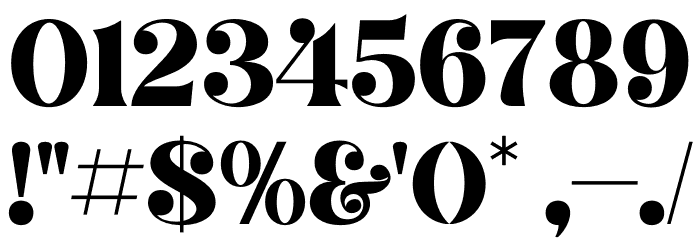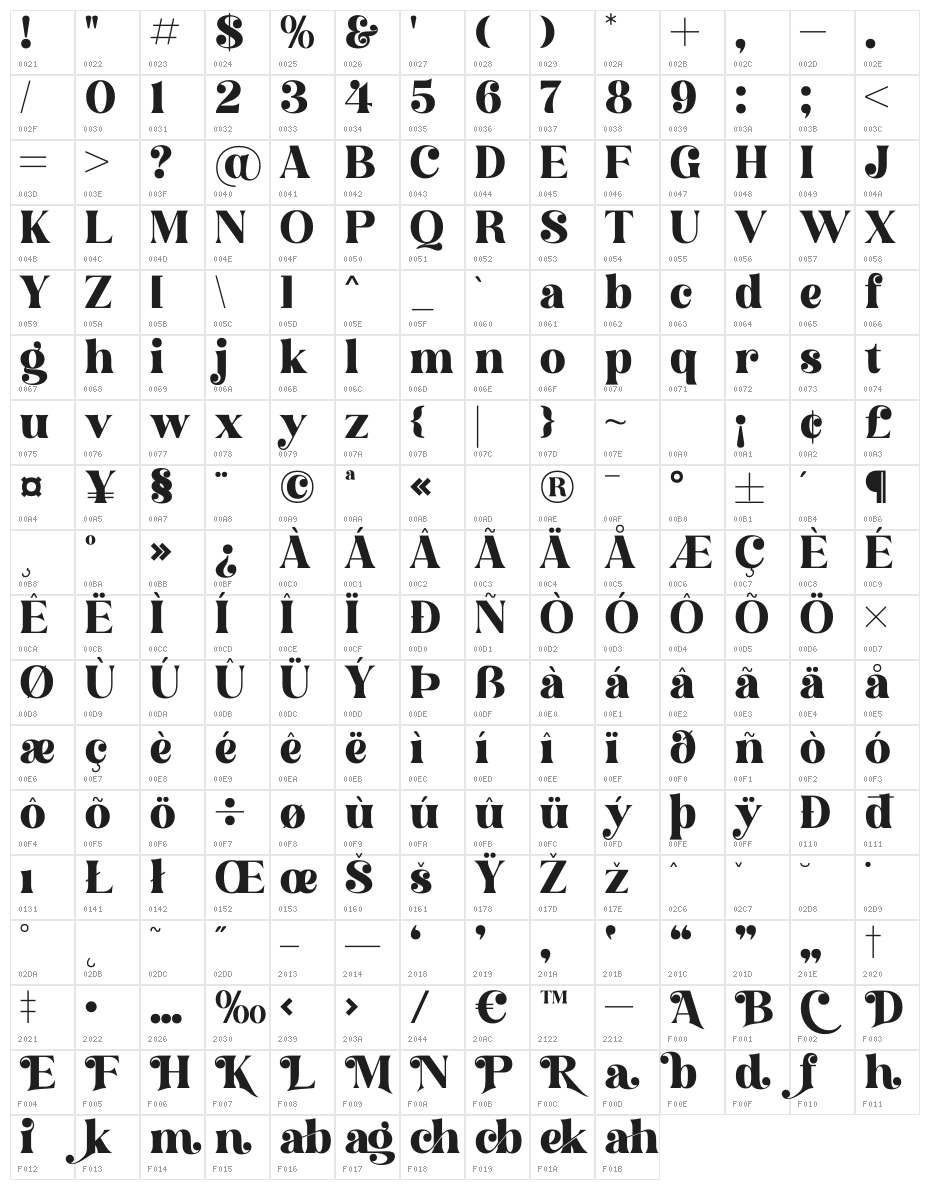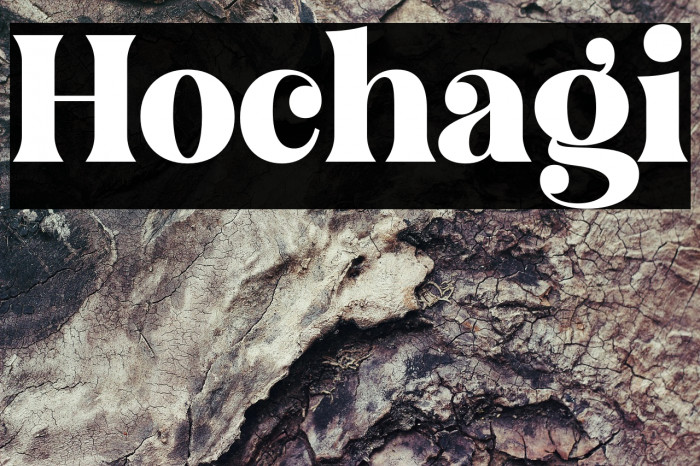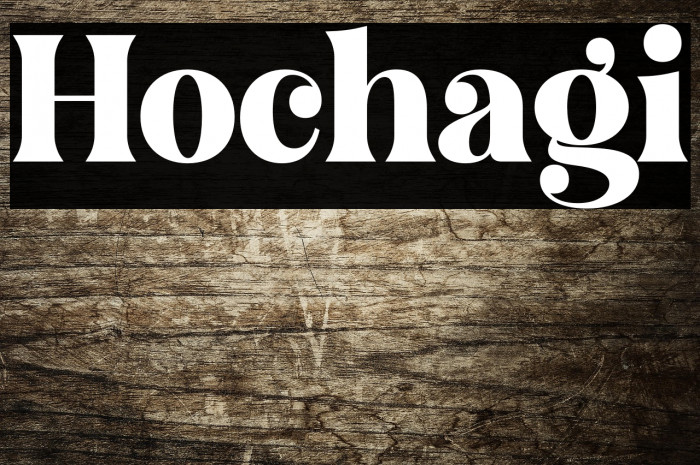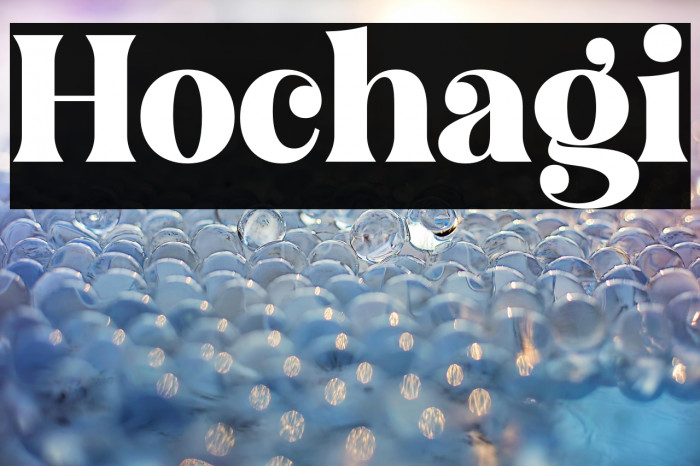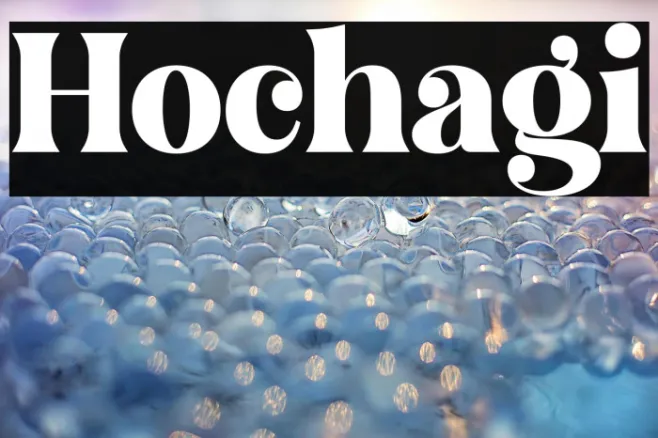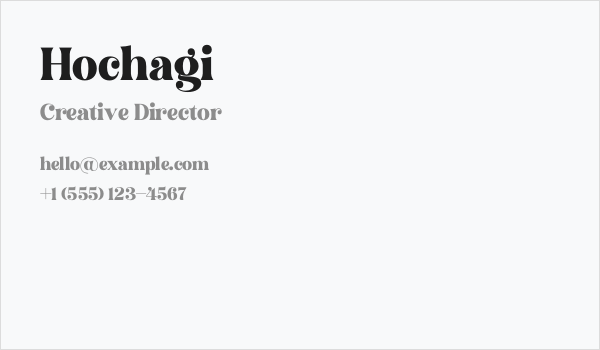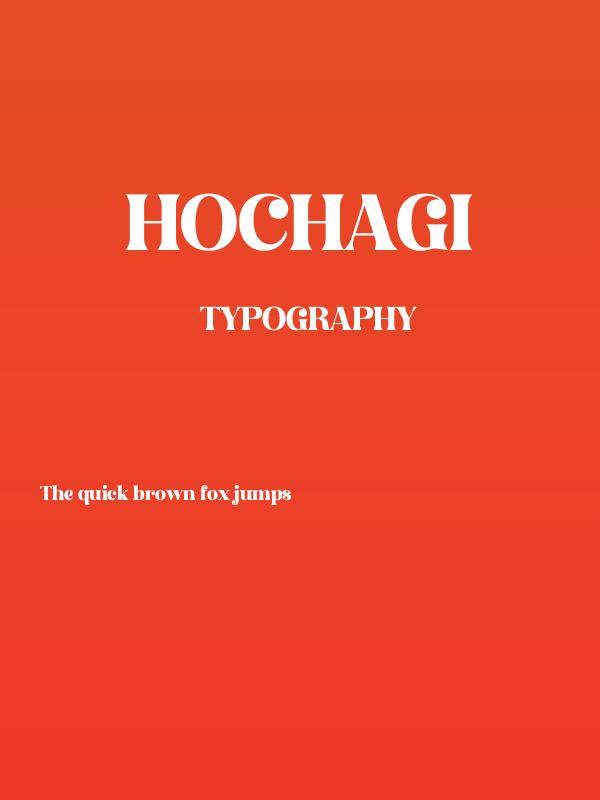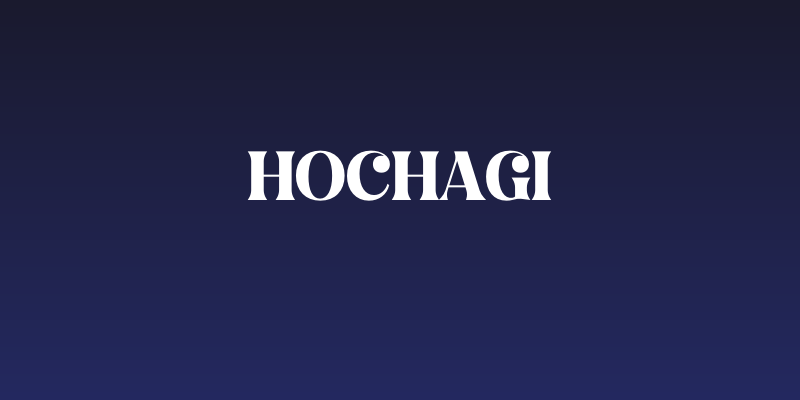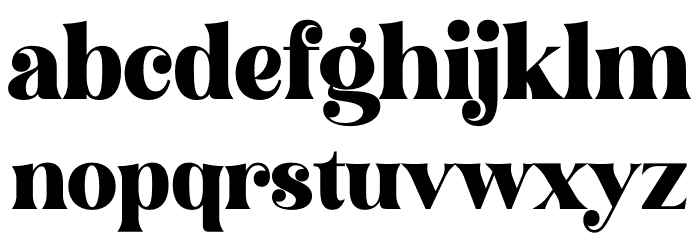
Hochagi Font
Hochagi Description
This font features a bold and dramatic style with high contrast between thick and thin strokes, giving it a striking appearance. The serifs are pronounced and add a touch of elegance, while the overall design maintains a modern flair. The uppercase letters are strong and commanding, while the lowercase letters offer a playful yet sophisticated look. The numerals are distinct and easily readable, and the special characters are designed to complement the overall aesthetic. This font is perfect for making a statement in any design project.
| Proposed Projects | Ideal for branding, headlines, posters, and editorial design where a strong visual impact is desired. |